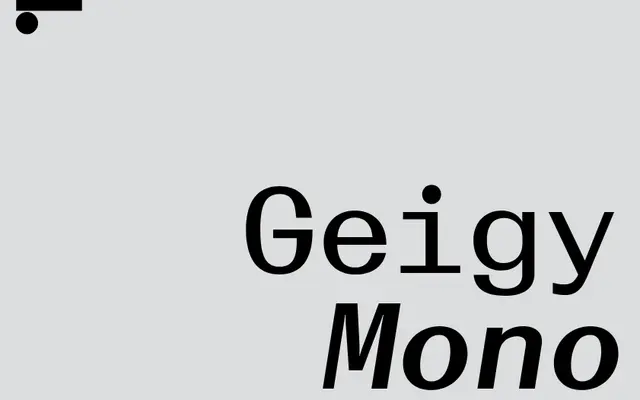
LL Geigy Mono
Lineto · Robert Huber · 2023
Two monospaced weights derived from LL Geigy, carrying the family's eccentric thick-thin contrast into fixed-width territory inspired by pre-Helvetica Swiss graphic design.
Designed by Robert Huber and released by Lineto in October 2023, the mono variant extends LL Geigy's playfully extravagant curves and pronounced thick-thin contrast into a fixed-width format — territory where such contrast is almost unheard of. The forced equal width amplifies certain quirks: rounded uppercase forms become more conspicuous when narrowed, while some lowercase letters grow curvier through widening. The result sits at the intersection of mid-century Swiss eccentricity and functional monospaced type, suited to editorial, brand and typographic contexts where a standard code face would be too neutral.
A monospaced sans-serif with pronounced thick-thin contrast, unusual for the mono genre; derived from LL Geigy, a display-leaning eccentric sans rooted in pre-Helvetica Swiss graphic design.